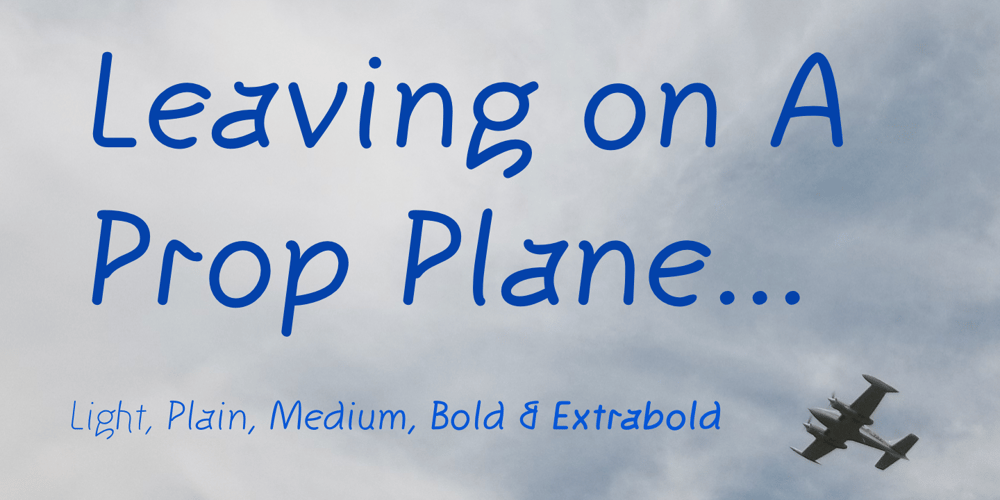
KnewFont Font Family was designed by Robert Schenk and published by Ingrimayne Type. KnewFont contains 5 styles and family package options. KnewFont simulates neat and meticulous hand printing. Its letters slant left and come in five weights.